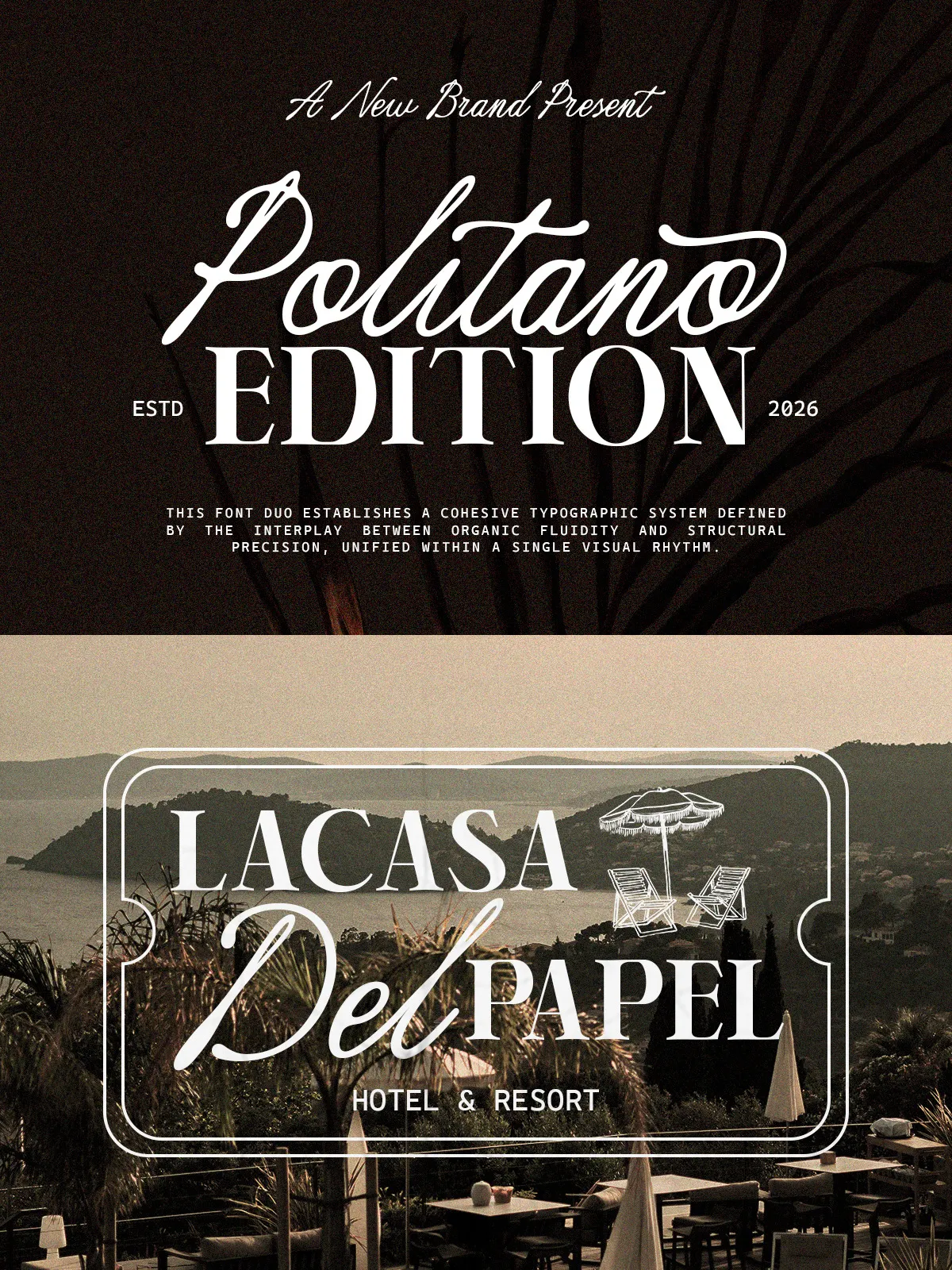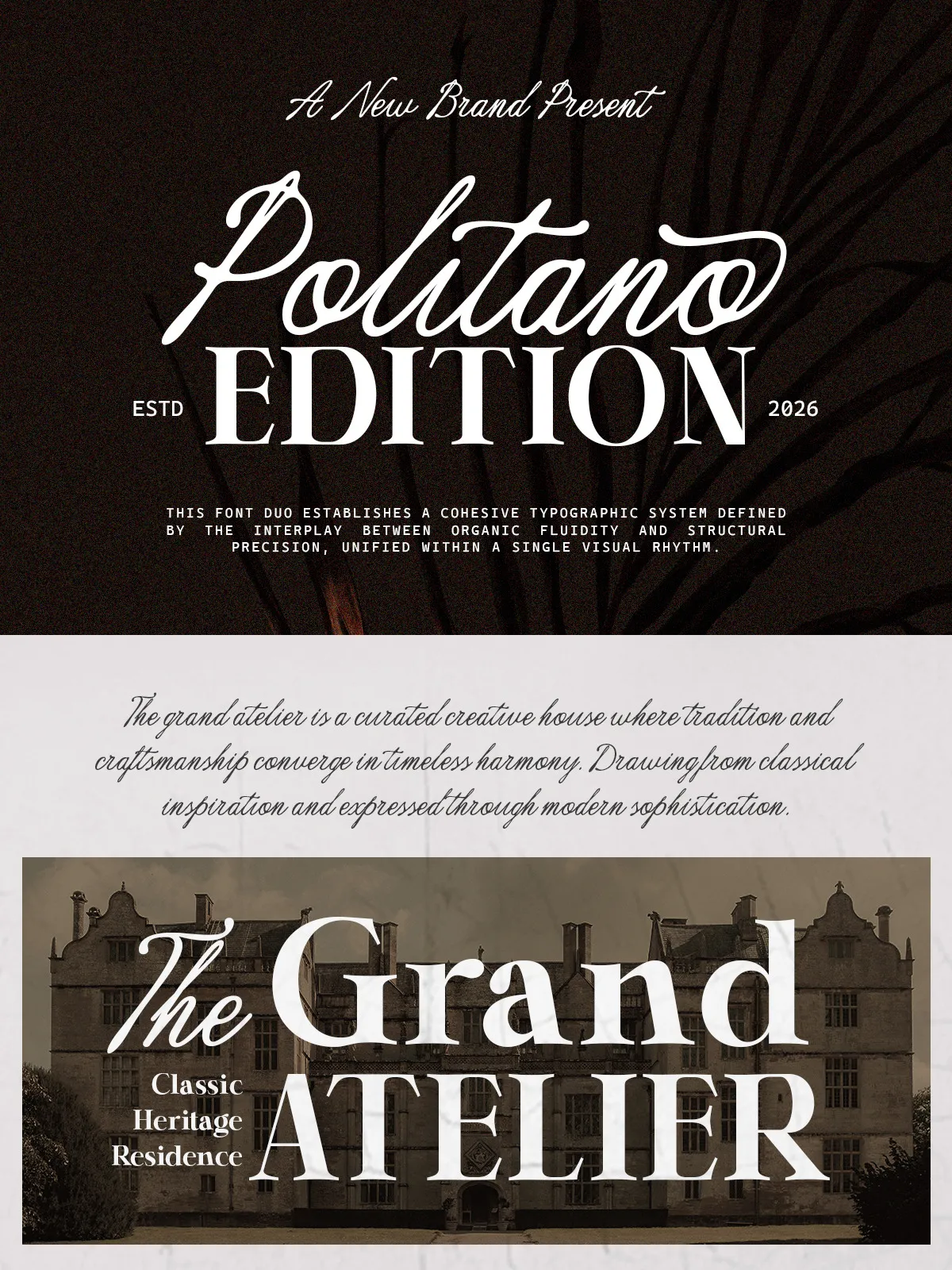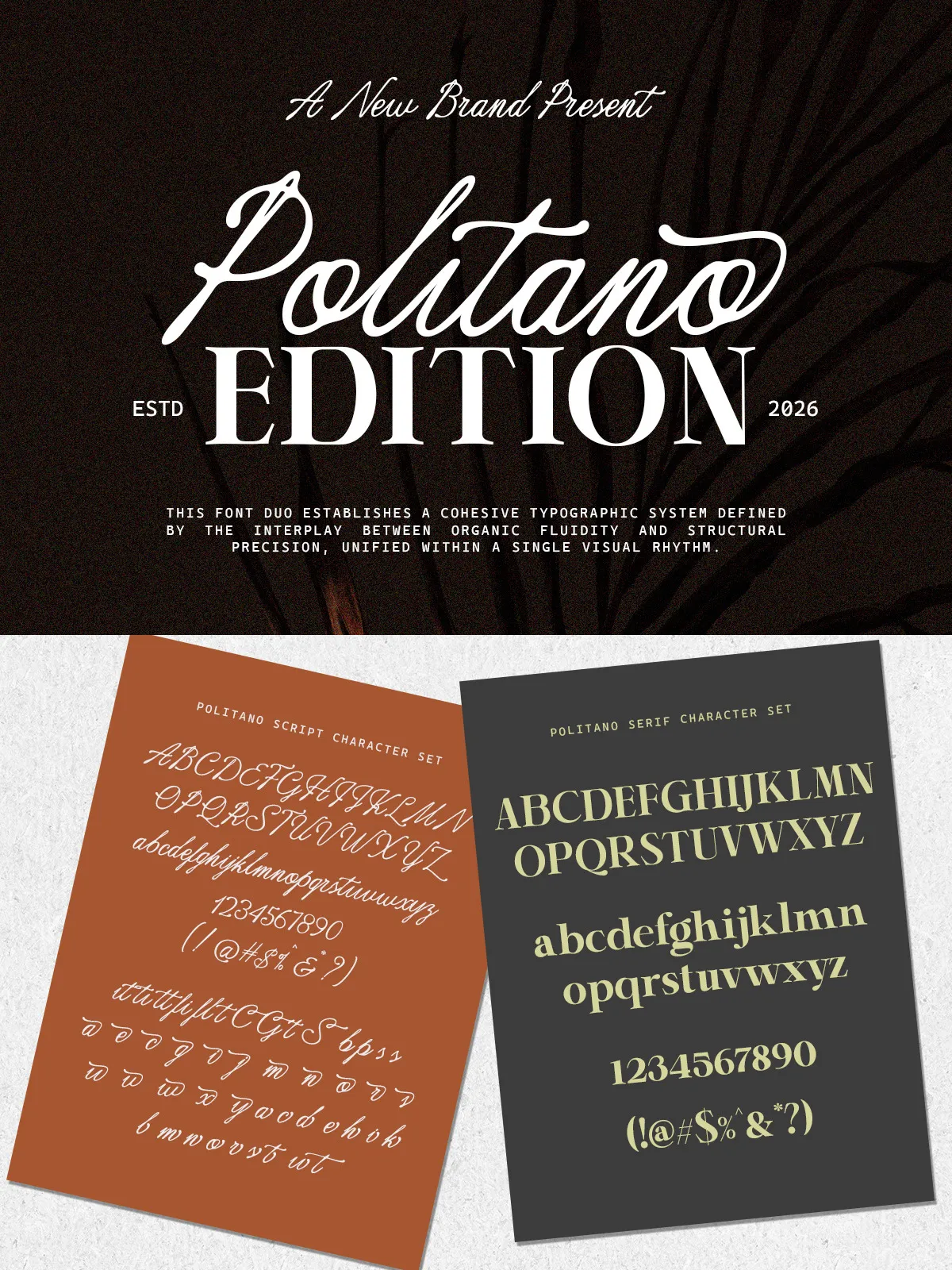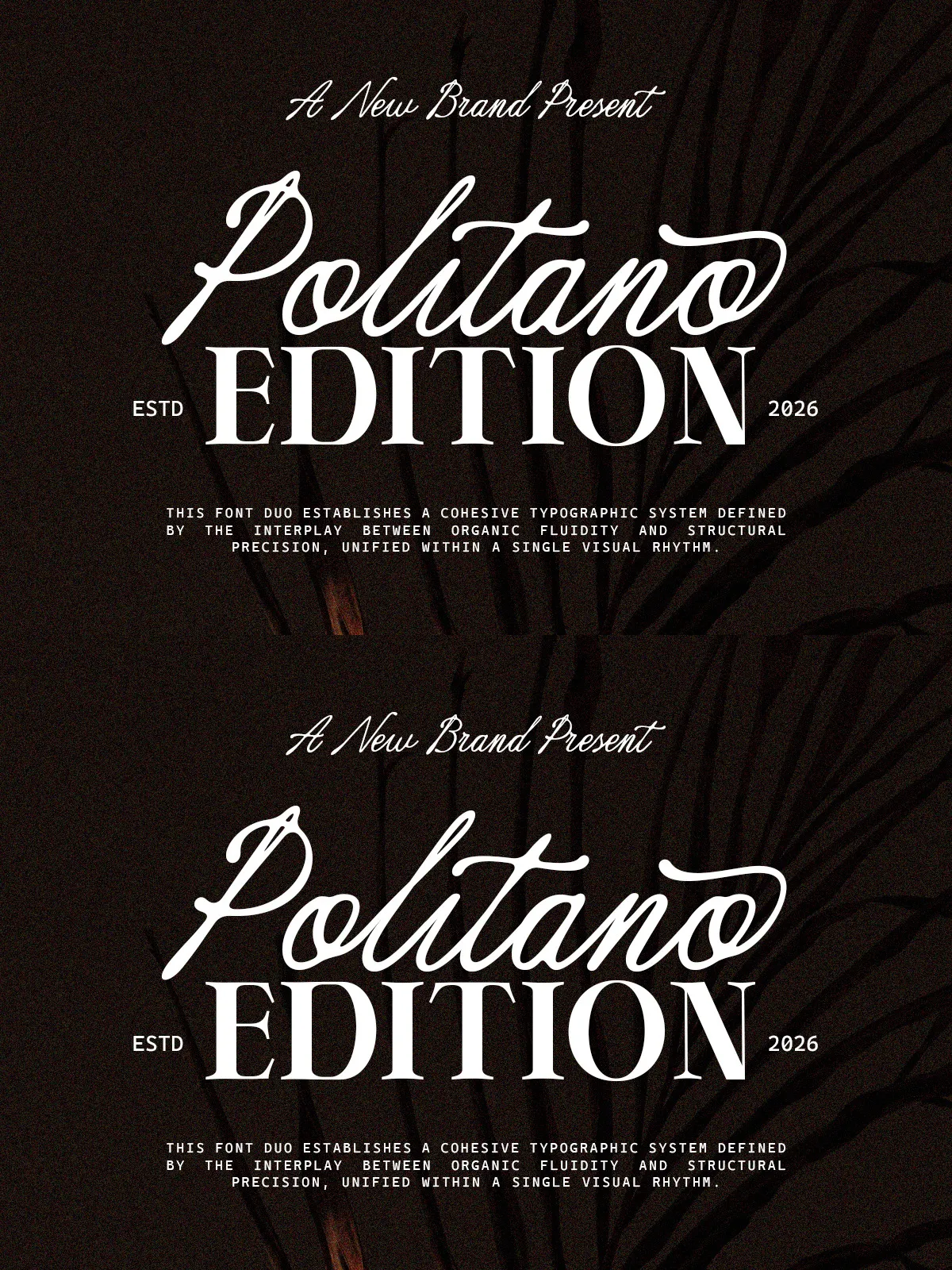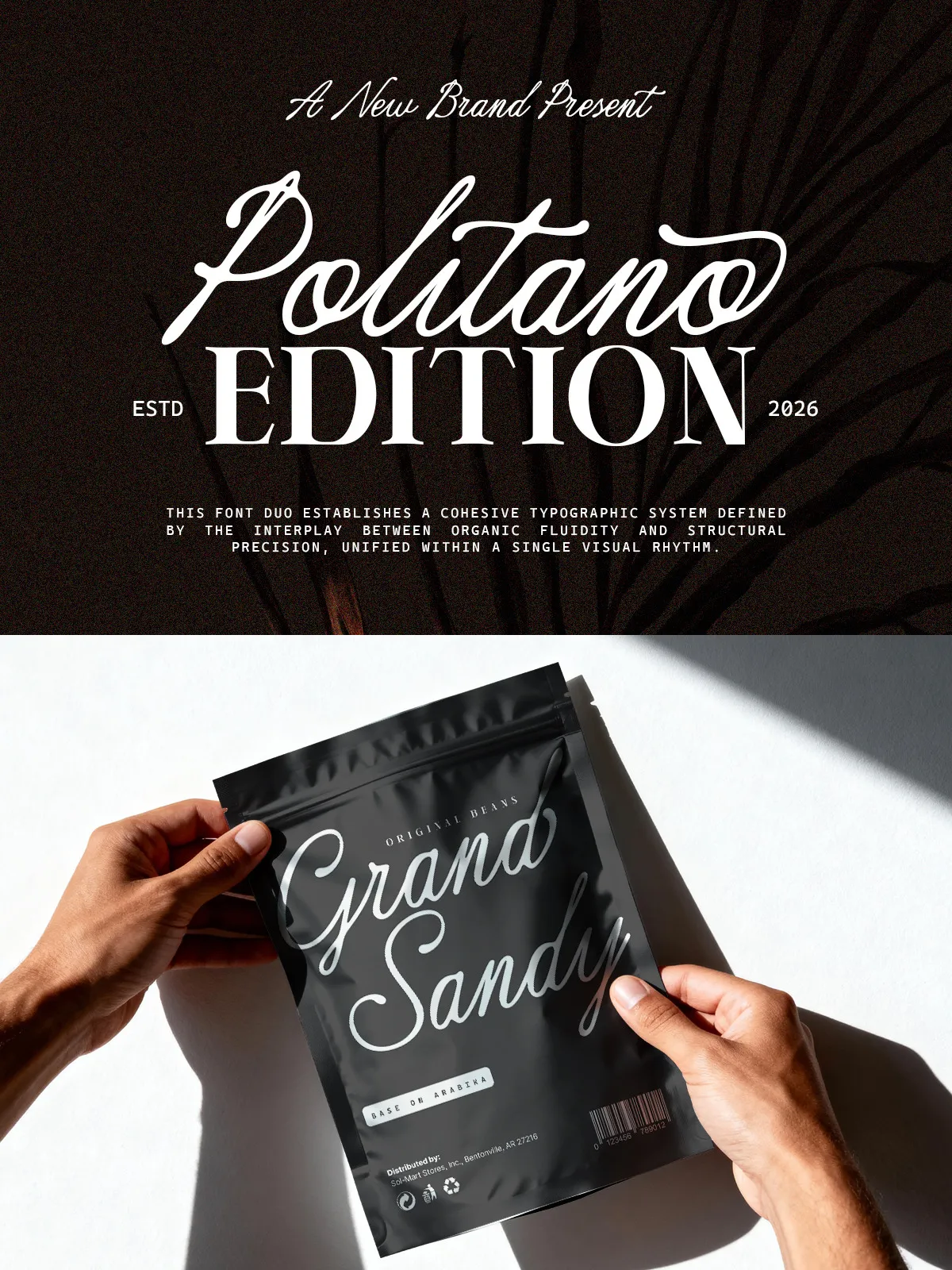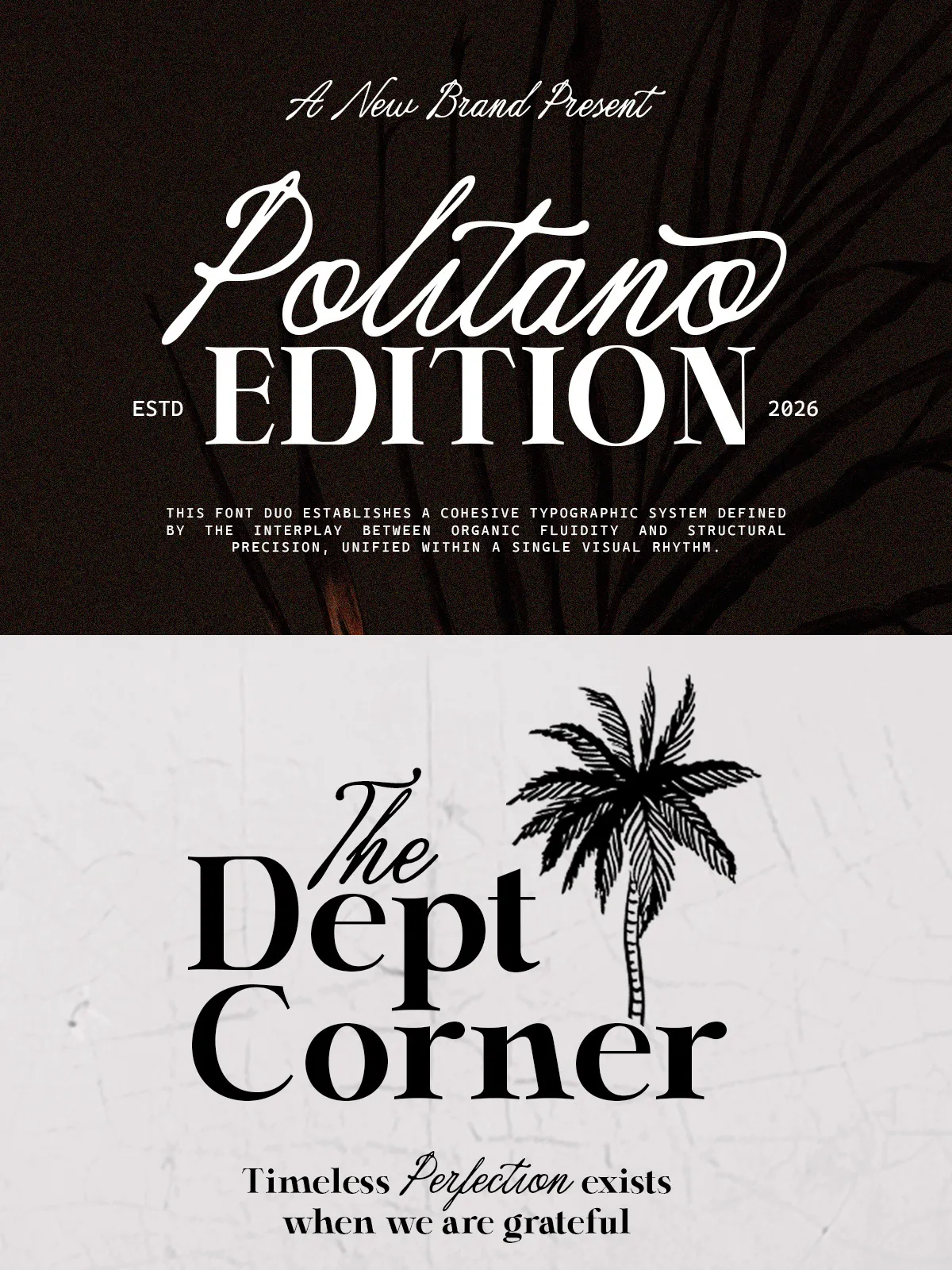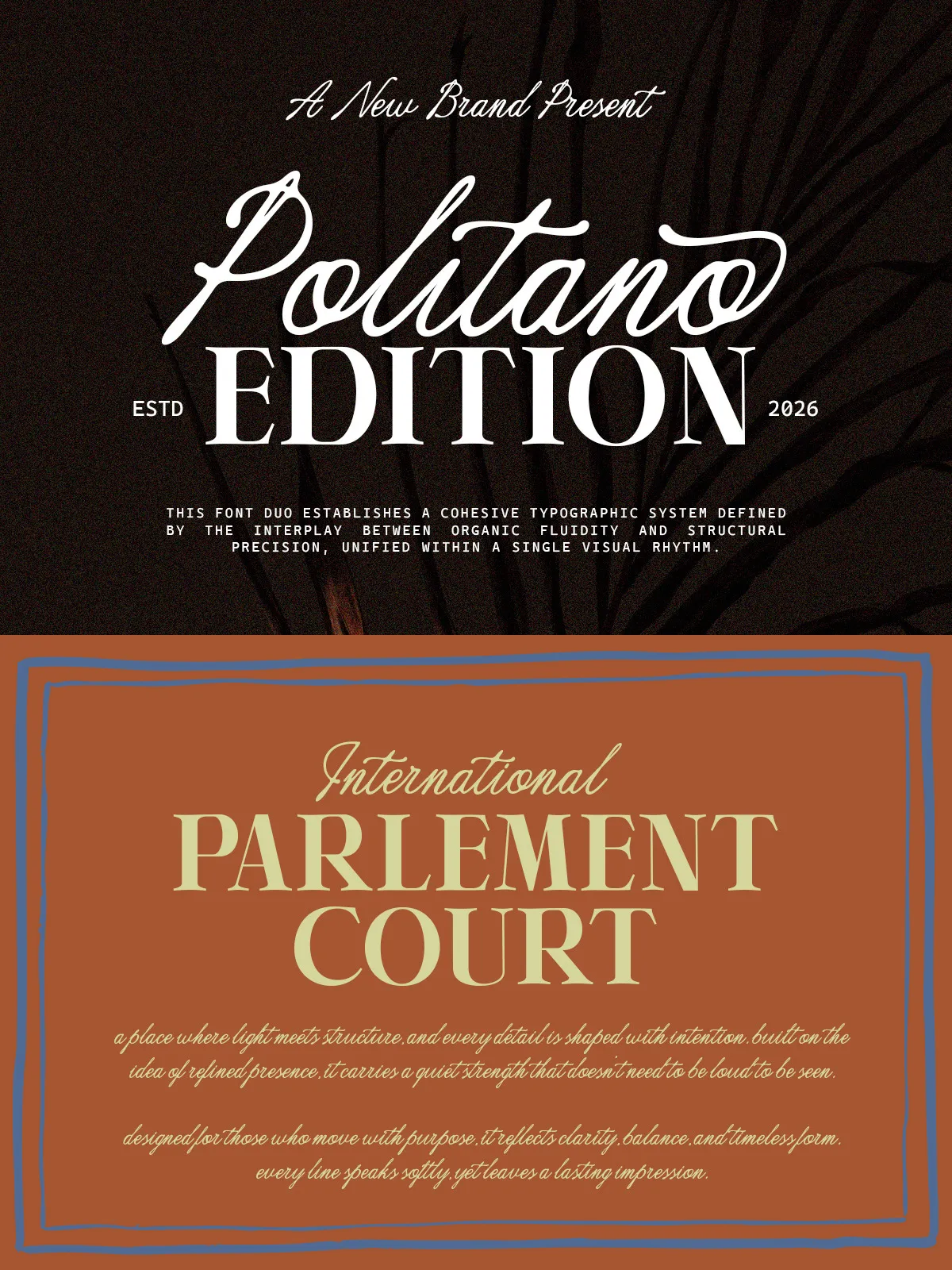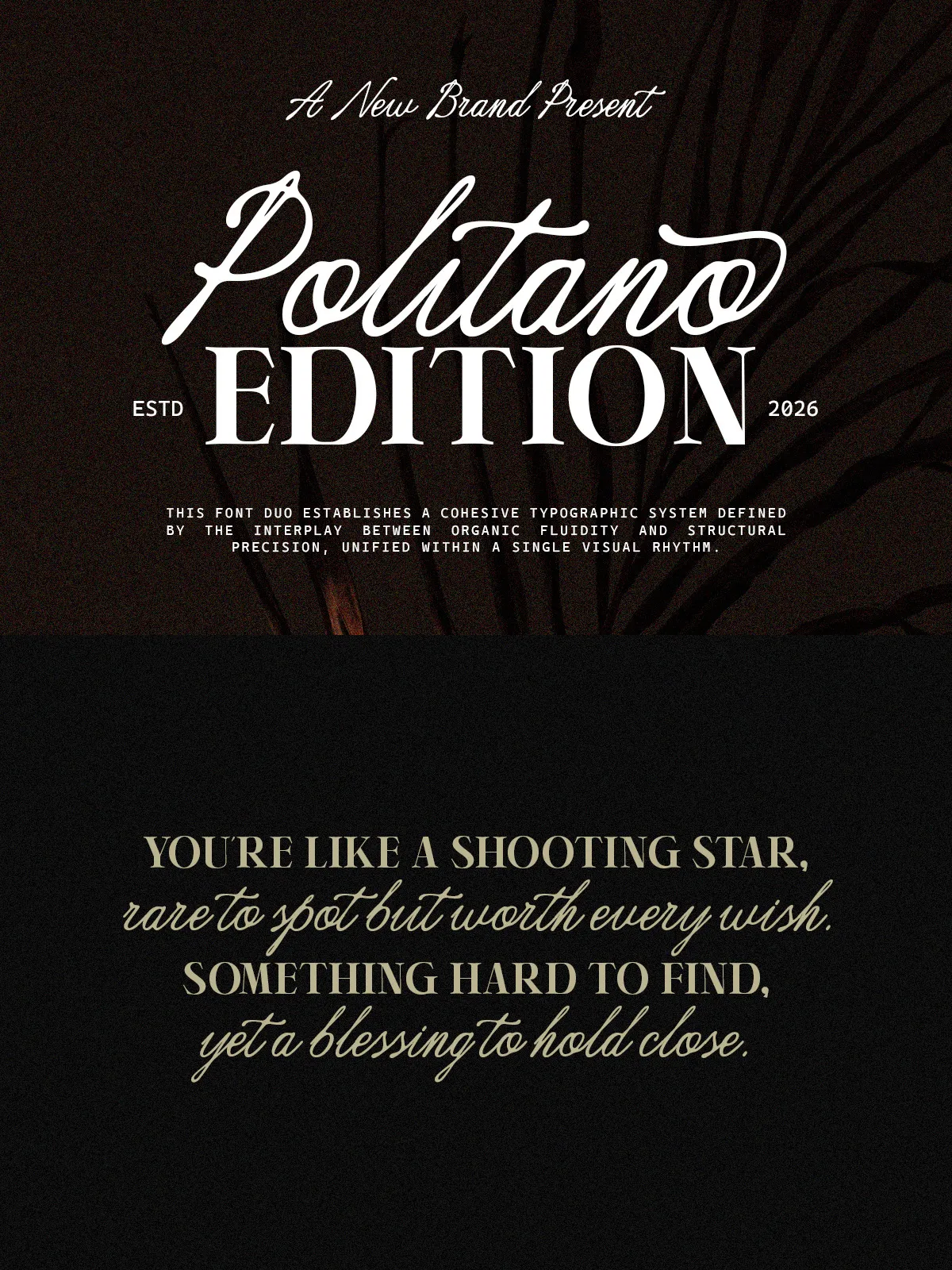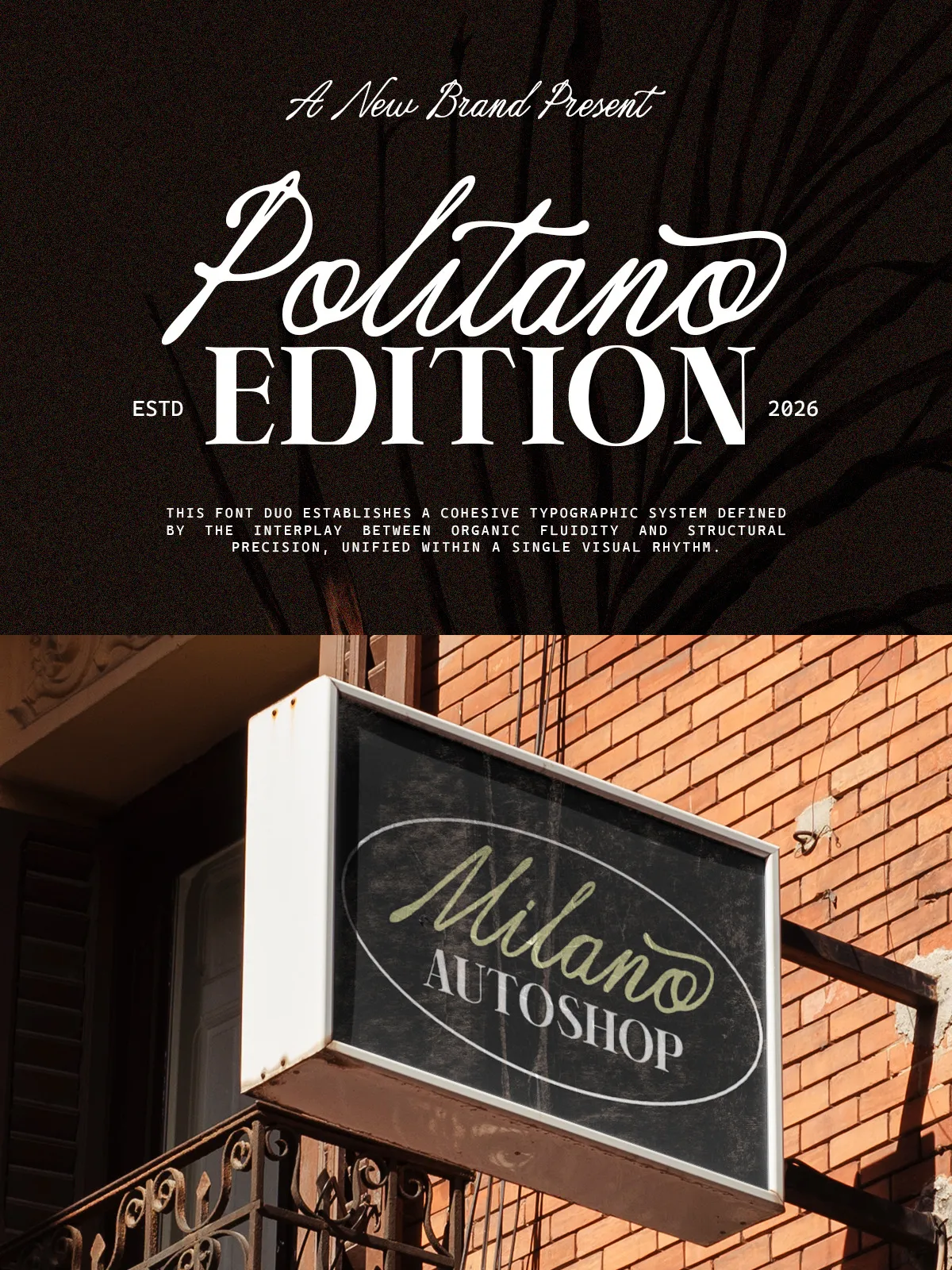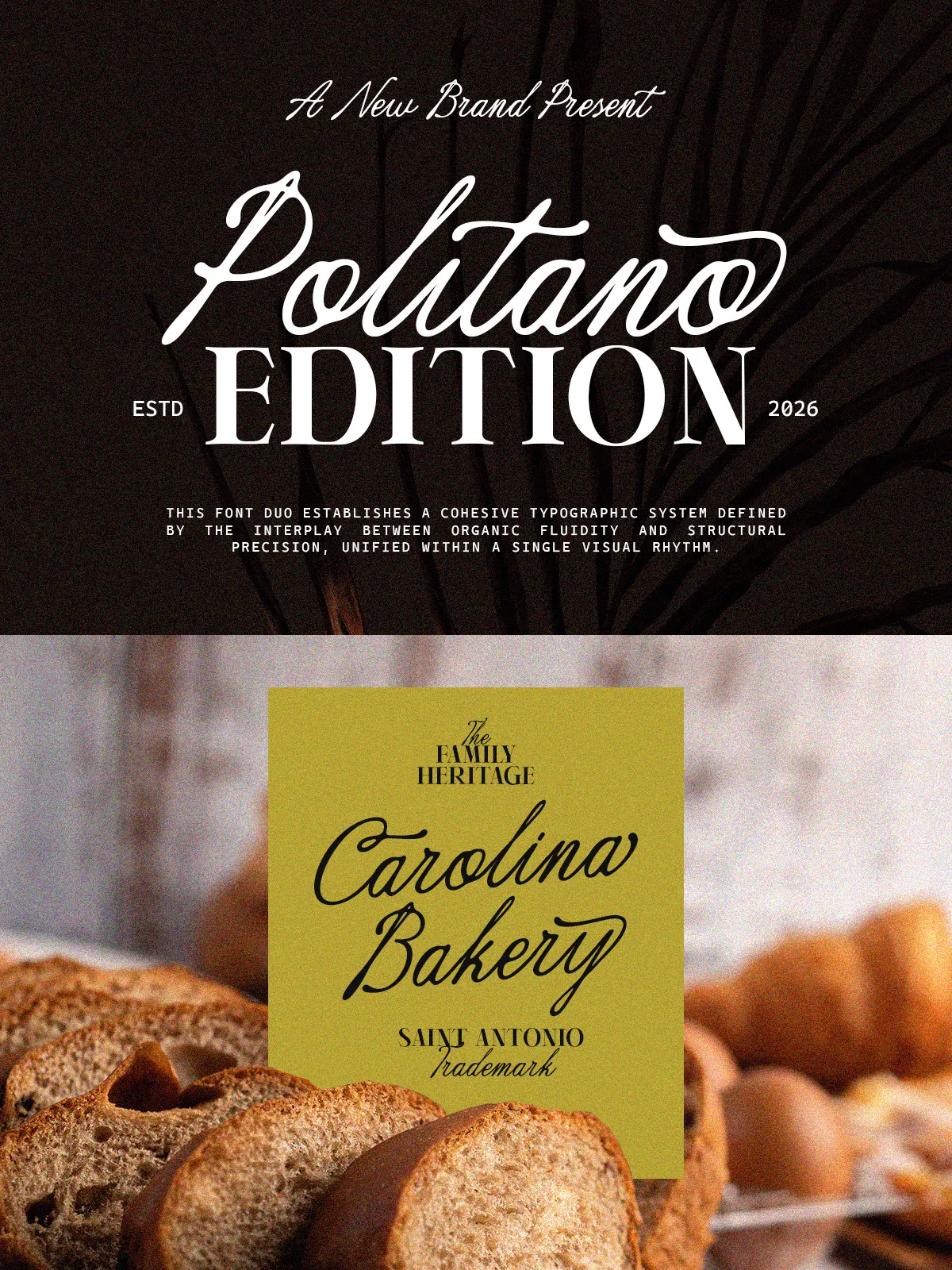
Politano Edition
Politano Edition pairs a flowing, romantic handwriting script with a timeless vintage serif to deliver a refined, versatile typographic voice. Built to infuse designs with warmth and effortless charm, this duo balances expressive, handcrafted script forms with the structure and readability of a classic serif. Use Politano Edition to give logos, wedding stationery, packaging, and editorial layouts an intimate, luxury feel.
Flowing Handwritten Script
The script component of Politano Edition emphasizes fluid, natural strokes and graceful connections. It activates emotion and personality in short headlines, wordmarks, or signatures. Alternates and swash characters let you craft distinct initial caps and flourish endings that read as intentional and artisanal.
Timeless Vintage Serif
The serif companion delivers stability and legibility. Its vintage proportions and careful contrast pair beautifully with the script, creating hierarchy without competing for attention. Use the serif for body text, subheads, and supporting copy to preserve readability while maintaining a cohesive look.
Thoughtful Alternates and Detail
Politano Edition includes carefully designed alternates and ligatures that let you fine-tune rhythm and flow. These options let you create unique combinations for identities, packaging labels, and editorial drop caps. The alternates are crafted to complement the script’s ornamental nature while preserving typographic balance.
Perfect For
Politano Edition actively enhances projects that require an elegant, personal touch. Typical uses include:
• Wedding invitations, envelopes, and RSVP cards
• Brand identities for boutiques, florists, and artisan goods
• Luxury packaging for perfumes, candles, and cosmetics
• Editorial features, magazine covers, and lifestyle spreads
• Logotypes, signatures, and product label typography
Design & Pairing Tips
Establish Hierarchy
Use the script as the focal display element—titles, names, and logotypes—while the serif supports longer text and captions. This contrast builds clear hierarchy: expressive headline, stable body.
Control Flourishes
Activate alternates and swashes selectively; reserve elaborate forms for short phrases and large sizes. Avoid overusing decorative glyphs in dense copy to maintain legibility and polished presentation.
Color, Texture, and Application
Pair Politano Edition with muted palettes, tactile paper stocks, and subtle grain or letterpress textures to amplify its handcrafted appeal. For digital use, apply generous tracking to the script at small sizes and keep contrast high for the serif to preserve clarity on screens.
Why Choose Politano Edition
Politano Edition activates a balance between personality and restraint. The romantic script communicates intimacy and charm, while the vintage serif keeps compositions grounded and readable. Together they accelerate design decisions, help you craft cohesive visual systems, and deliver refined results for premium brands, weddings, and editorial projects.